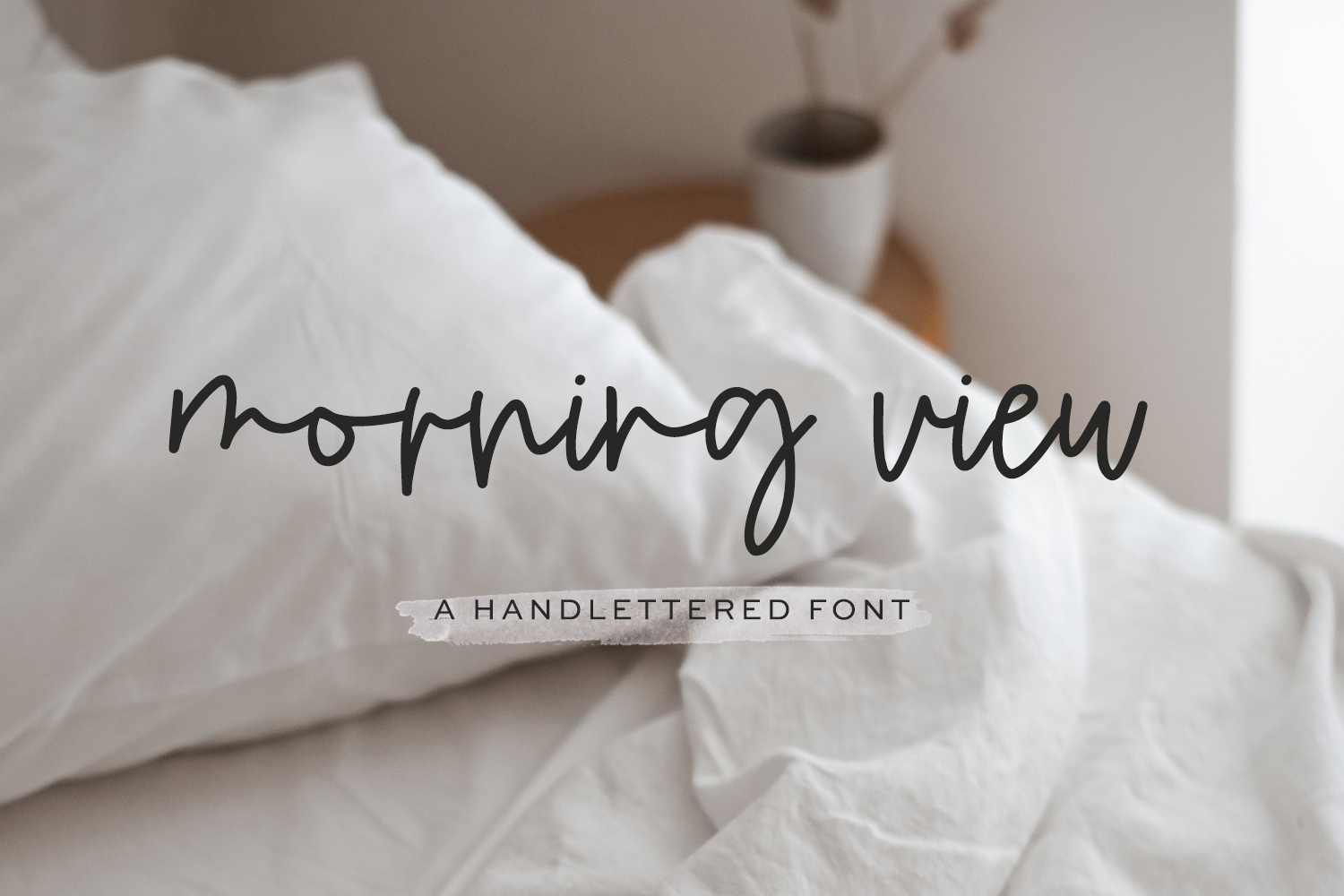
Meet Morning View Script, a monoline cursive font with lowercase alternates and ligatures. Morning View is effortless with a slight feminine feel, perfect for your next project.
Morning View Script is best for:
- website design + website accents - think travel blogs, fashion blogs, & more
Morning View Script includes:
- 26 lowercase alternate characters
- 15 ligatures - bb, cc, dd, ee, ff, gg, kk, ll, mm, nn, oo, pp, rr, ss, tt